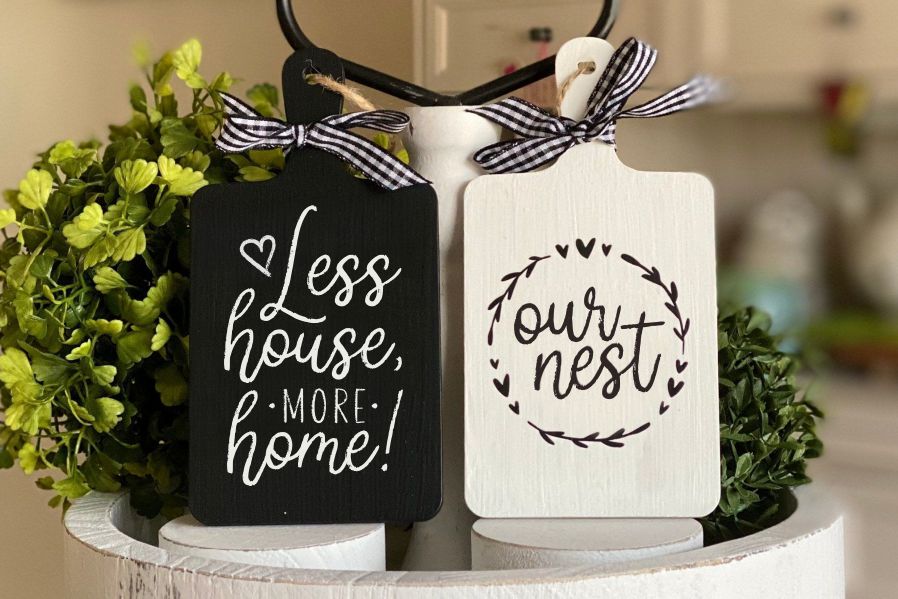
Manlychalk Font
Manlychalk Script Font is A Script Chalk Font. Manlychalk is perfect for product packaging, branding project, magazines, social media, weddings, or just used to express words above the background.